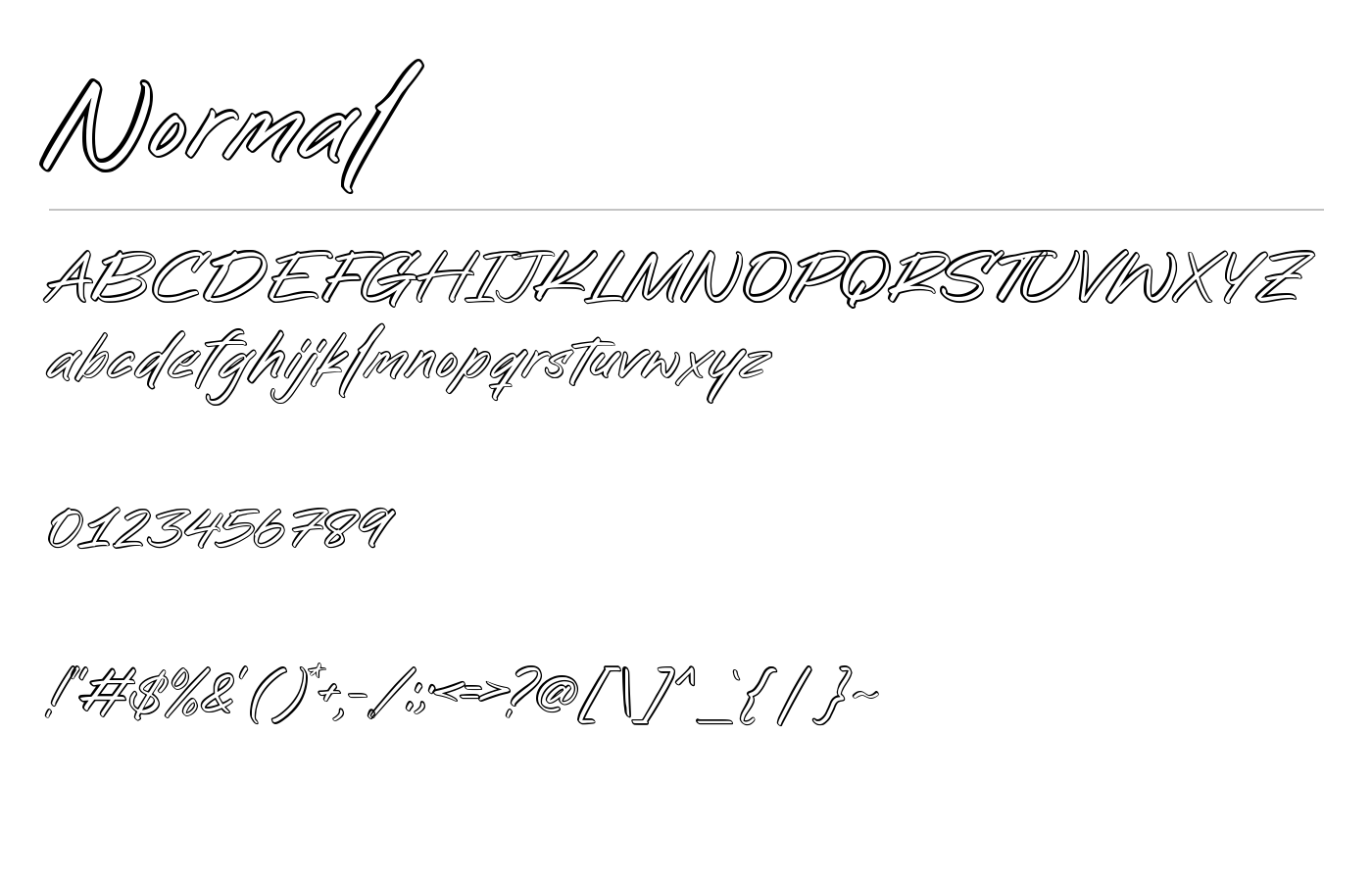
Baltigo City is a playful and dynamic handwritten script font featuring smooth, flowing lines with a casual yet stylish flair. It offers a light weight and slightly condensed width, with an energetic slant and lively letterforms that combine both uppercase and lowercase styles, making it perfect for creating approachable and modern designs. This font works well in branding, logos, invitations, and creative projects that seek a friendly, personal touch with a touch of urban sophistication.
Baltigo City Font
About Baltigo City Font